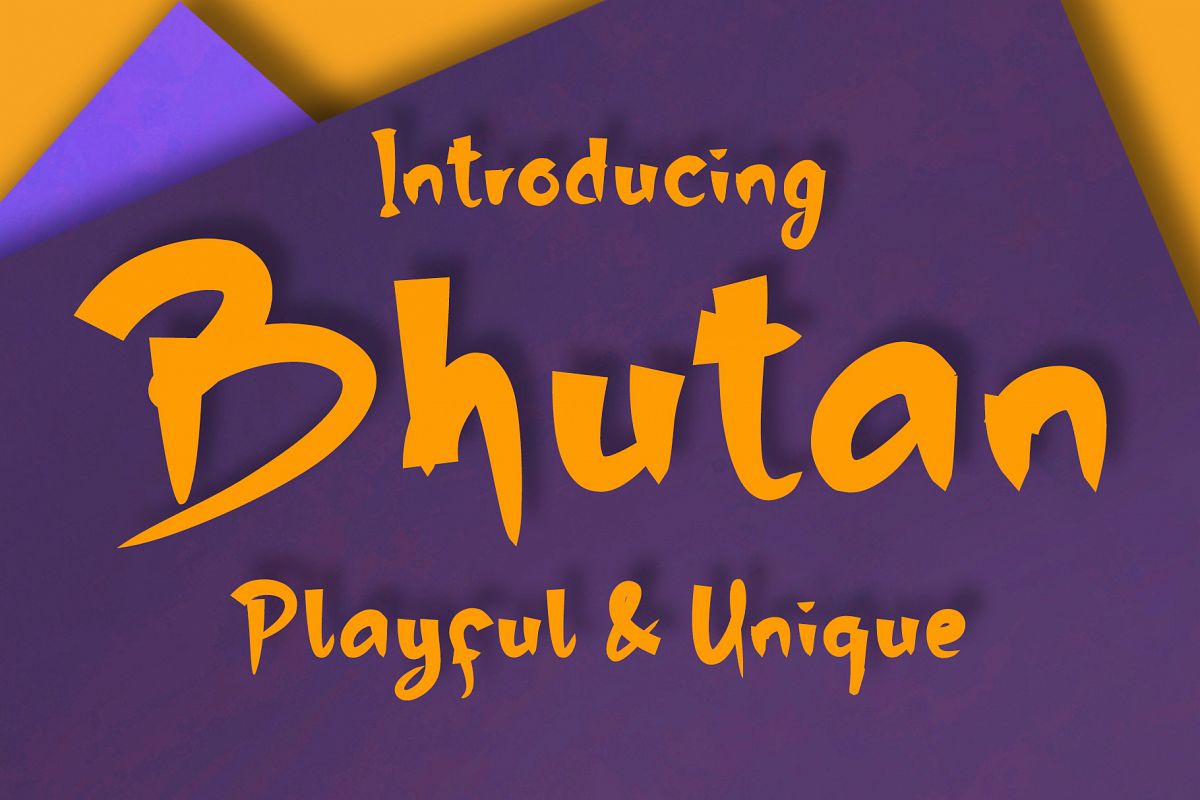
Bhutan | Display Font
Bhutan is a great font for your any project! This font made with unique taste, comes with natural touch. We keep this font looks readable, elegant, stylish, catchy and absolutly easy to use.
Bhutan is the great choice for watermark on branding, design, wedding, photography, signature, logo design, album cover, business card, quotes, and many other design project.